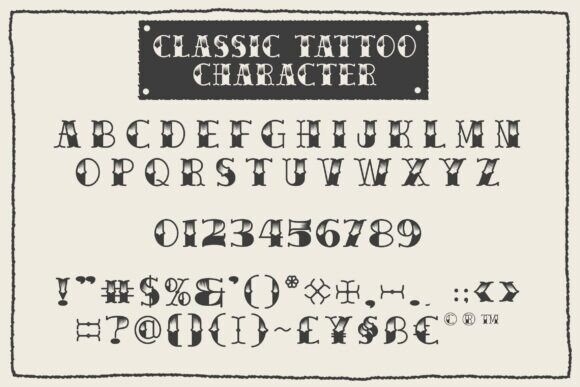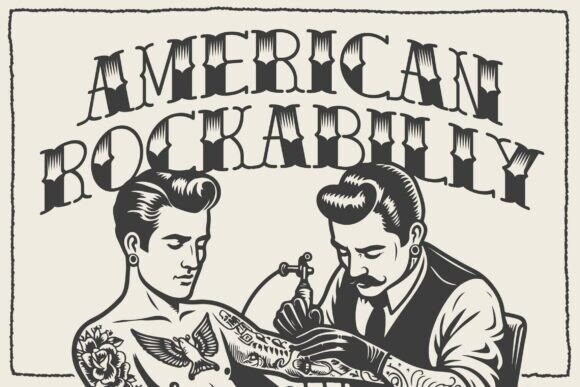
Classic Tattoo Font
Designer: Blankids Studio
Classic Tattoo Font a traditional tattoo style font is made for any professional project branding, such as logotype, watermarks, poster, branding, promotions, product packaging, etc. Every letter has a tattoo style design.